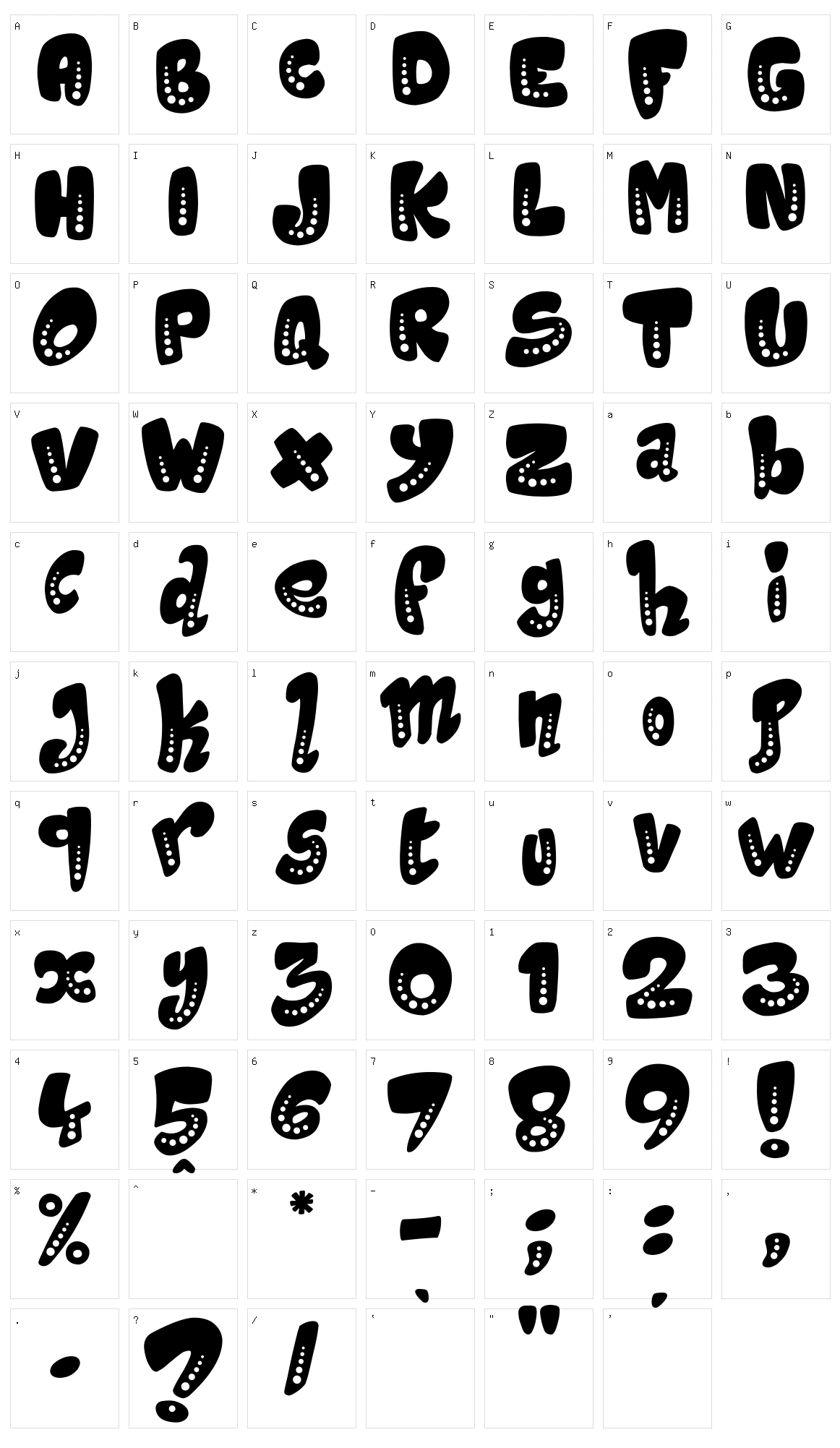
The free font Magic Spots is carefully designed by imagex, showcasing a thoughtful balance of creativity and usability and falls under the Cartoon font style. When you download the ZIP file, it contains only 32.24 KB of font files, making it lightweight and quick to download. Please review the license details below to understand permitted usage and distribution rights. If license information is not available, we recommend using this font for personal projects only or contacting the author directly for commercial usage permissions.